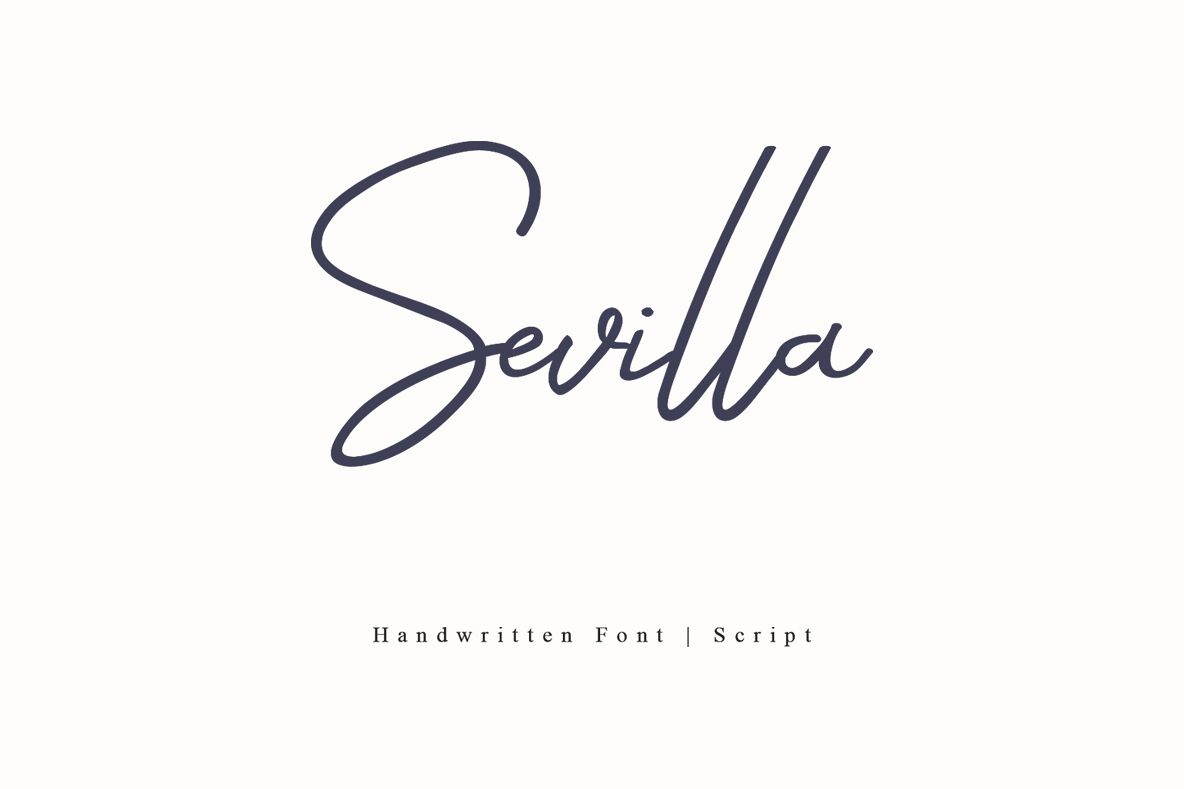
sevilla
Sevilla
Inspired by the Truth of life and the wonder of it all, Heaven and Earth is a signature-style hand-written font, designed to be elegant, modern and fashionable.